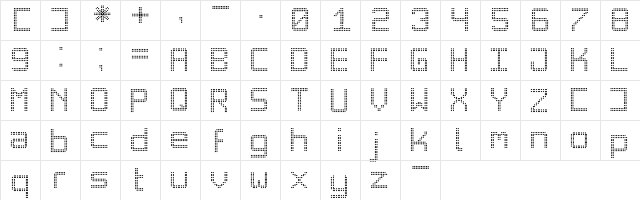
Big Daddy LED TFB Regular
| Designer | kaiser zhar khan |
Design Context for Big Daddy LED TFB Typeface
Big Daddy LED TFB takes a measured approach to typography — its balanced proportions and neutral character make it a reliable workhorse for both digital and print work.